A Font to Harmonize a Brand that Proposes Lifestyles
Camper Japan
Office Manager Naoko Okano
Camper, whose home office is in Spain, was founded in 1975 based on the concept of a free and comfortable creativity and a reflection on new lifestyles. Today, Camper has shops in major cities around the world, such as Spain, London, Paris, and Milan. Loved by many people as a brand that provides footwear to accompany their lifestyle, Camper transcends the mere category of shoe manufacturer.
In 2009, Camper changed its previous ecological image to a cleaner, more elegantly one. Initially, the company selected white as its corporate color, and then chose Univers as the corporate font for European languages. After deliberation by the company’s brand management department, Camper decided to go with AXIS Font from among three candidates for the Japanese corporate font, as it was compatible with the European corporate font and could assume the Camper identity to aptly convey the company’s brand message.
At present, Univers and AXIS Font are being used on various kinds of printed matter, such as press releases, business cards, envelopes, letterheads, POP, and product guides used inhouse.
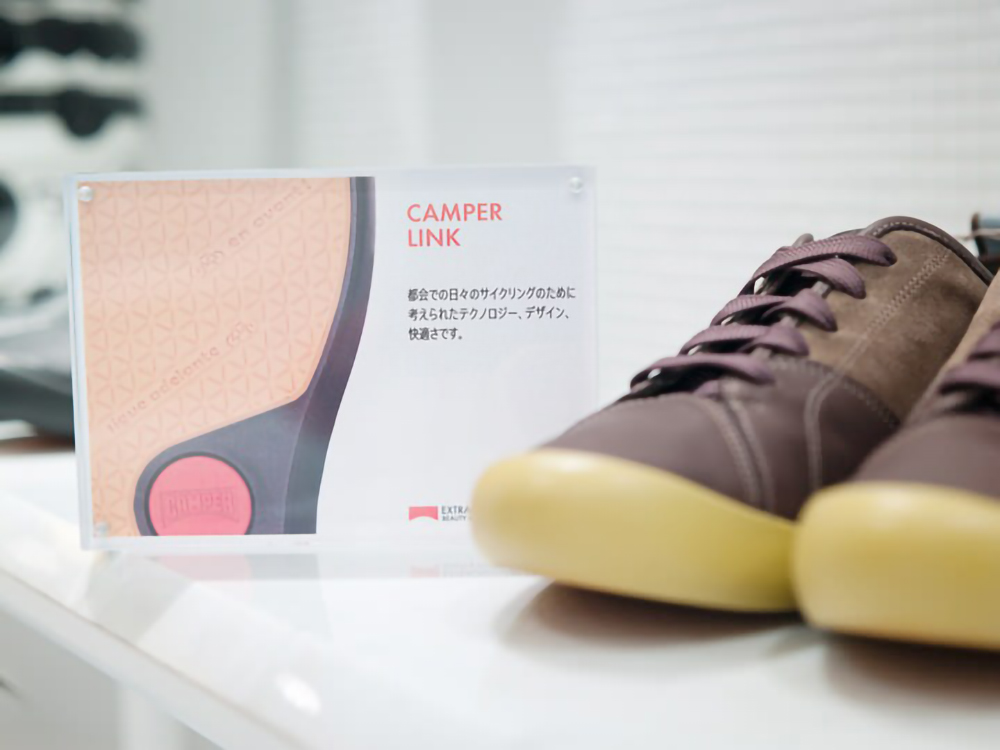
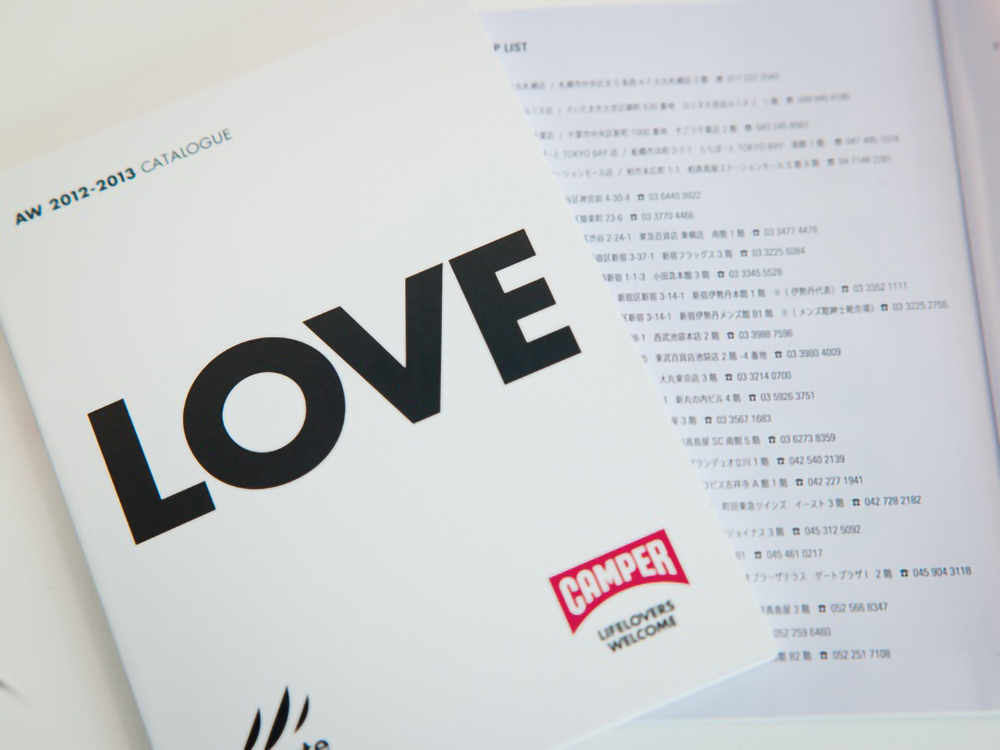
Naoko Okano, Office Manager at Camper Japan, says, “We changed the corporate color to white in the fall and winter season of 2009, and hammered out a simple, clean image. At the same time, the ULISSA Rounded typeface that Camper had been using previously for the European font was changed to Univers. In our search for a font that would suit the clean brand image and harmonize naturally with the European corporate font, we encountered AXIS Font. We are very thankful that AXIS Font existed.”
The shop staff perform the important role of ambassadors that convey Camper’s philosophy and feelings about shoes to the customers. Believing that a consistent brand image is important in employee education so the staff can all embrace the brand’s values and properly convey the brand’s message to outside world, Camper uses the corporate font in internal documents, such as presentations and shop staff manuals.
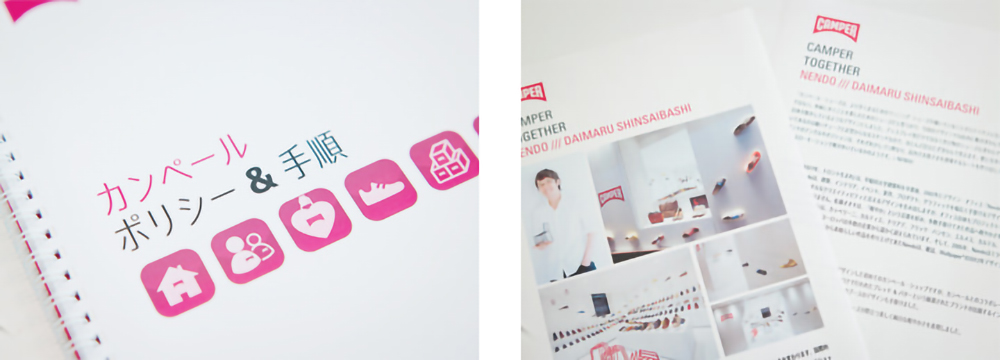
“Although fashionableness and functionality such as wearing and walking comfort are important elements, that’s not all there is to Camper’s charm, and you can always find a certain playfulness in the company’s various expressive methods in regard to naming and design.”
Shoes express human life. Even while based on traditions nurtured since the company was founded in 1877 on the island of Mallorca by the expert shoemaker Antonio Fluxá, Camper continues to incorporate innovative ideas, and while remaining serious never forgets a sense of playfulness. Camper, which proposes lifestyles though its shoes, is also well-known for enjoying a vibrant repeat business from its customers.